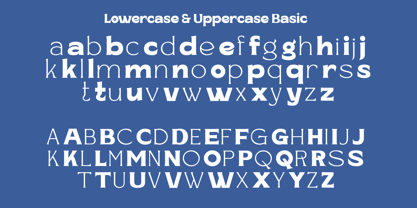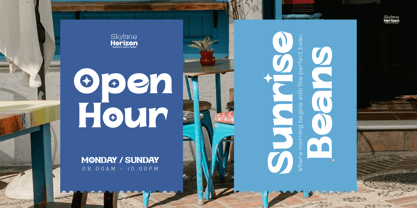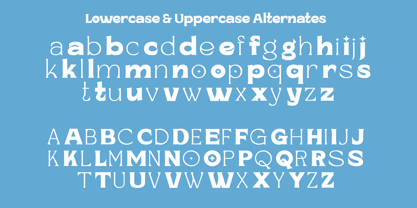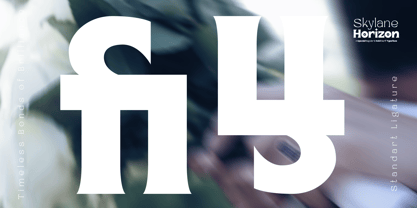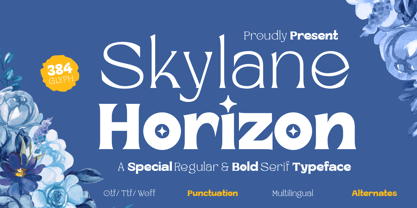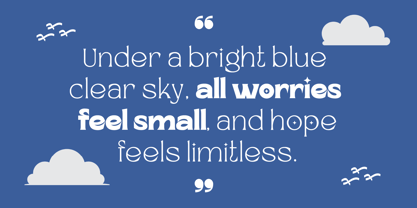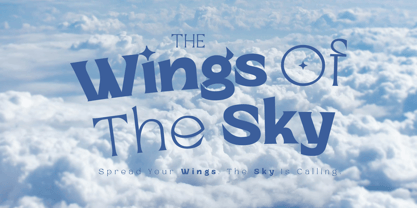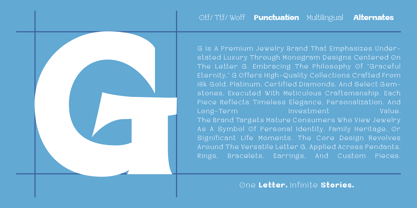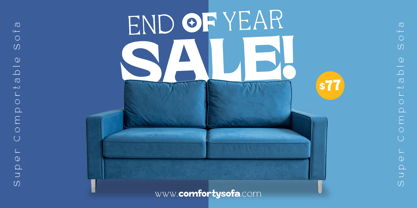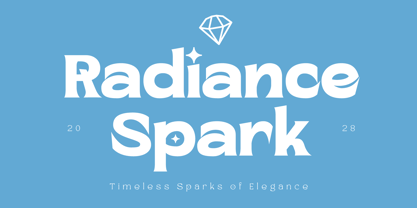
Skylane Horizon
The Skylane Horizon Font Family was designed by Risma Mulyasari and published by Risma Type. Skylane Horizon contains 4 styles and family package options. More about this family
Skylane Horizon is a modern high-contrast serif display typeface, elegantly crafted for headlines, titles, posters, and luxury branding. This typeface seamlessly blends classic serif elements with contemporary touches, offering two primary weights: Regular, which delivers a refined and sophisticated lightness with impactful presence, and Bold, which provides powerful and commanding visual strength to capture maximum attention. With sharp lines, precise serifs, and balanced proportions, Skylane Horizon excels in editorial projects, fashion magazines, premium logos, high-end packaging, and large-scale displays where elegance meets bold visual impact. The font evokes the expansive feel of wide horizons and sky-bound adventure, offering a timeless yet fresh aesthetic to every design. Key features include basic Latin character support, numerals, punctuation, and alternates for styling variations. This typeface is perfect for designers seeking a versatile high-end serif display that embodies distinctive character and sophistication.